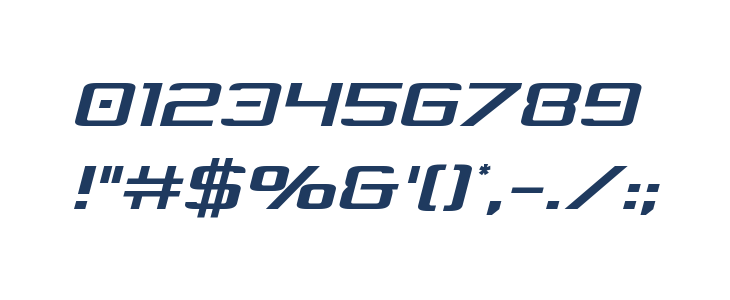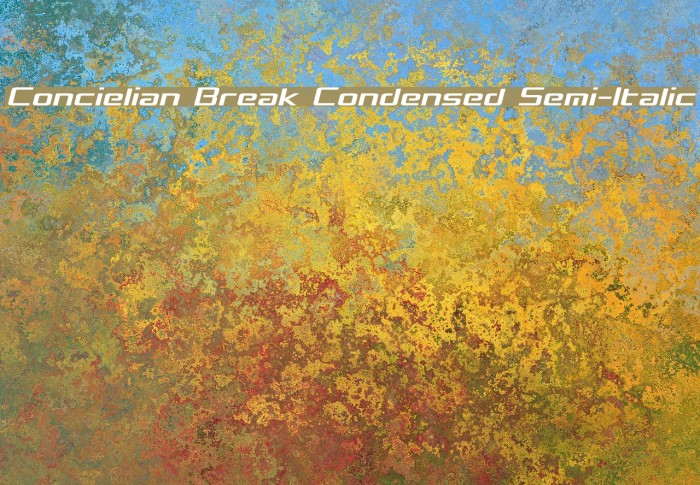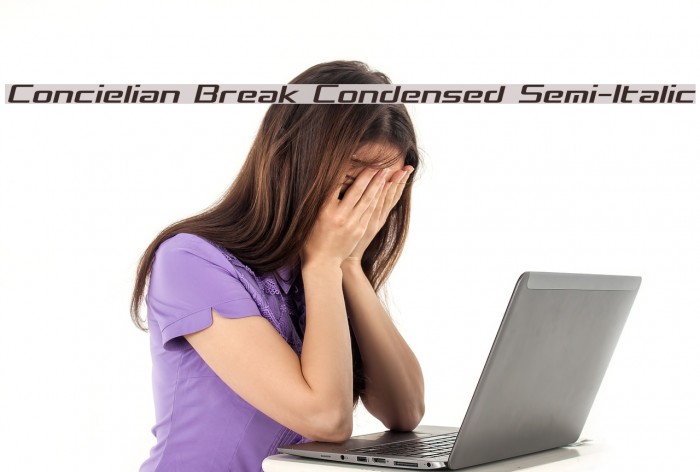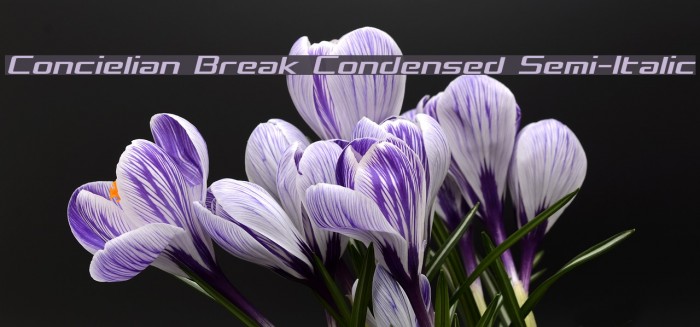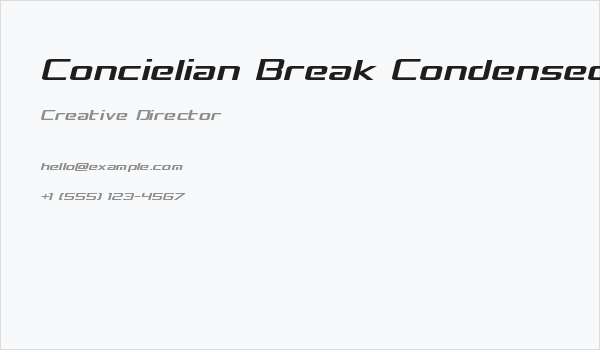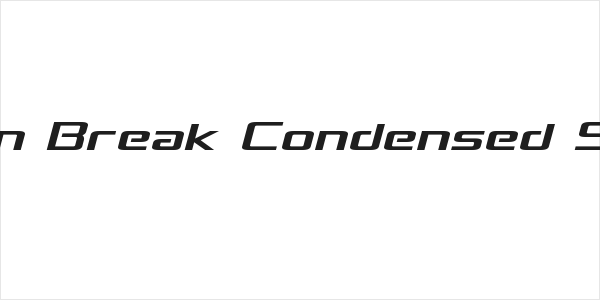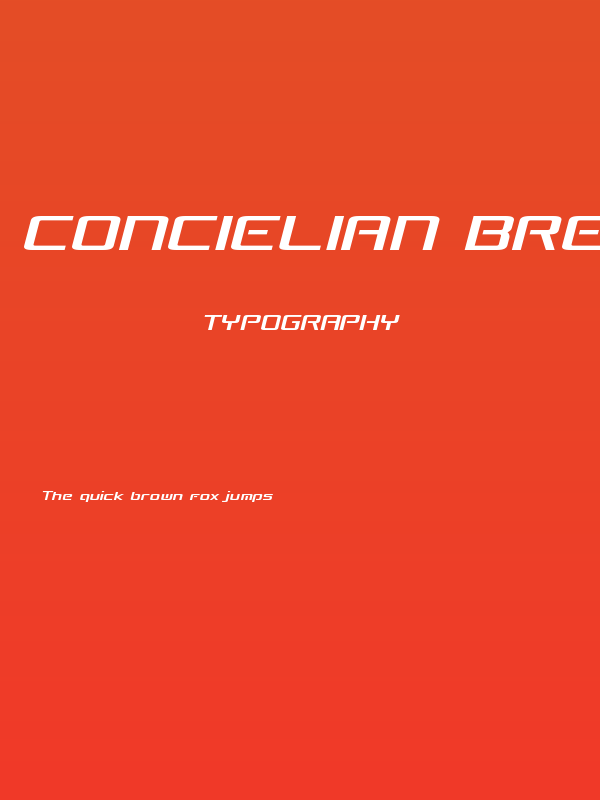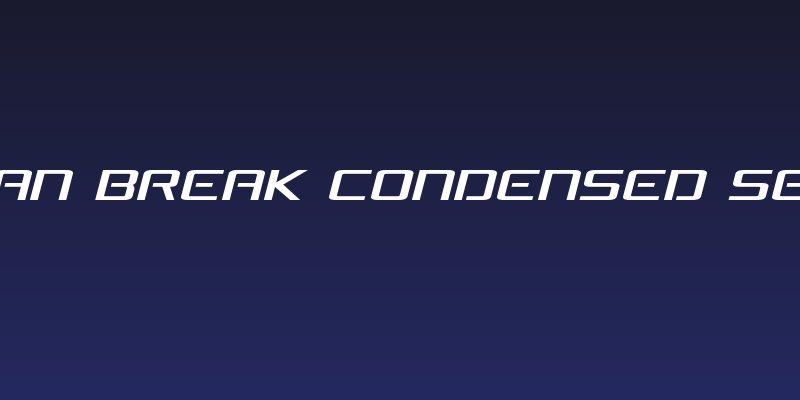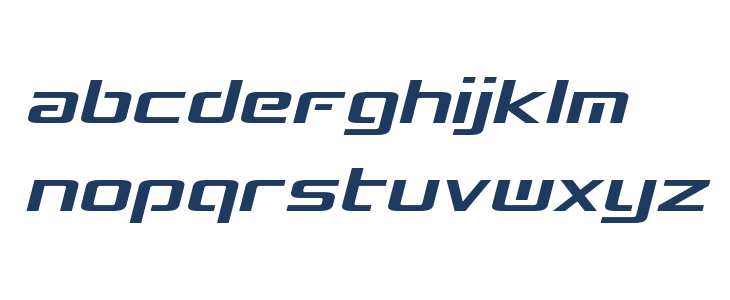
Concielian Break Condensed Semi-Italic Font
Concielian Break Condensed Semi-Italic Description
This font features a modern, angular design with a condensed structure and semi-italic slant. The characters exhibit a sleek, futuristic aesthetic, characterized by sharp edges and clean lines. The uppercase and lowercase letters maintain a consistent style, with a slight forward tilt that adds dynamism and movement. The numerals and special characters are designed to match the overall geometric and streamlined appearance, making the font suitable for contemporary and tech-oriented projects. The spacing between characters is moderately tight, enhancing the compact and efficient look.
| Use Case | Headlines, Logos, Digital Interfaces |
| Proposed Projects | Ideal for technology branding, modern advertising, futuristic posters, and digital interfaces. |